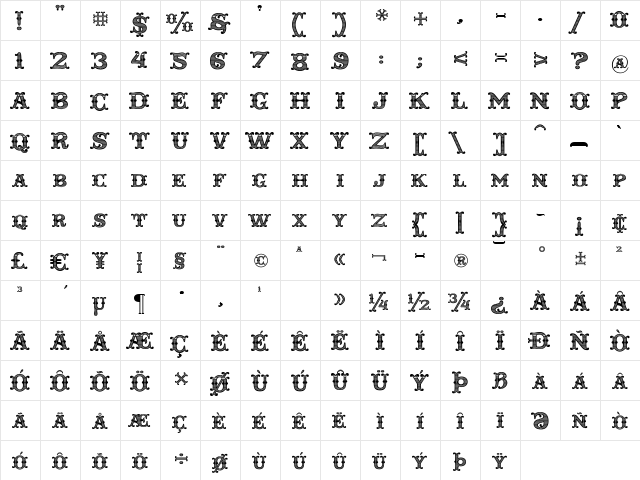
Taqueria Black Special Regular
Design Context for Taqueria Black Special Typeface
Taqueria Black Special is a composed and adaptable typeface that performs quietly and consistently across a wide range of design contexts.